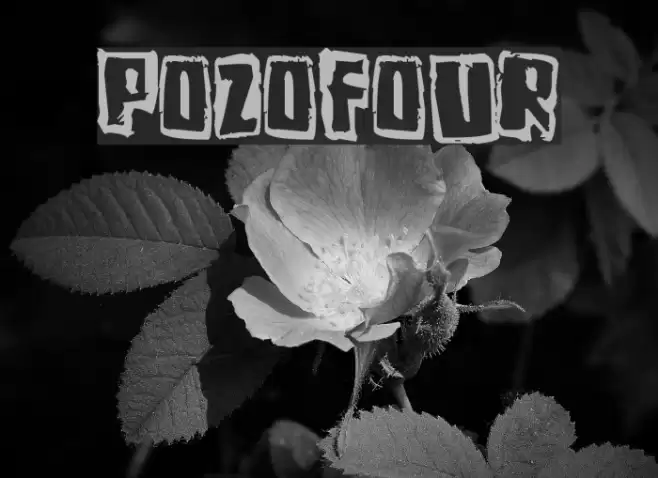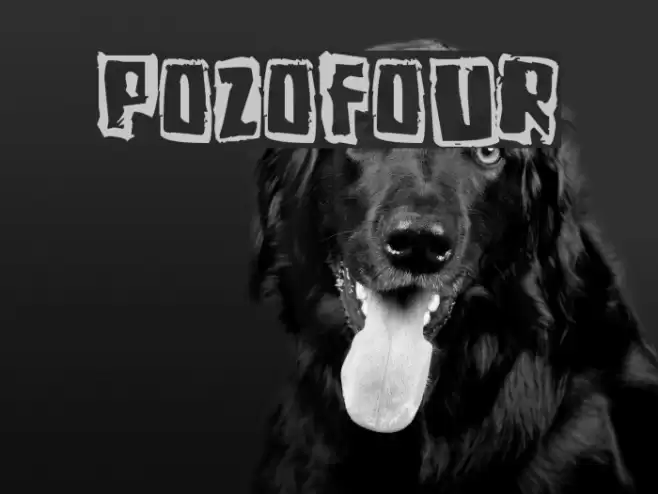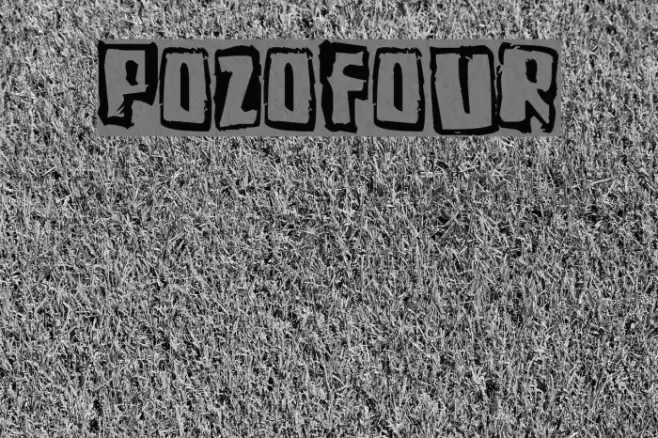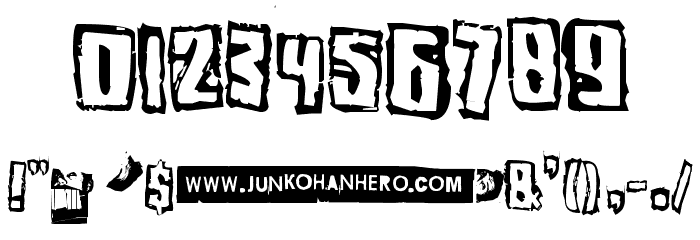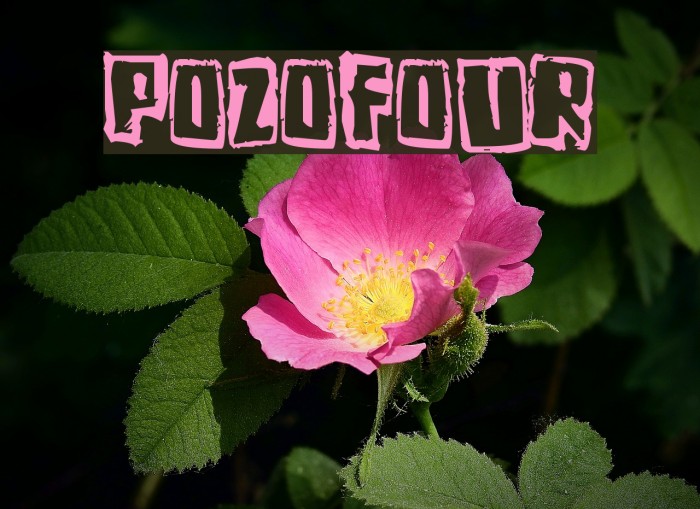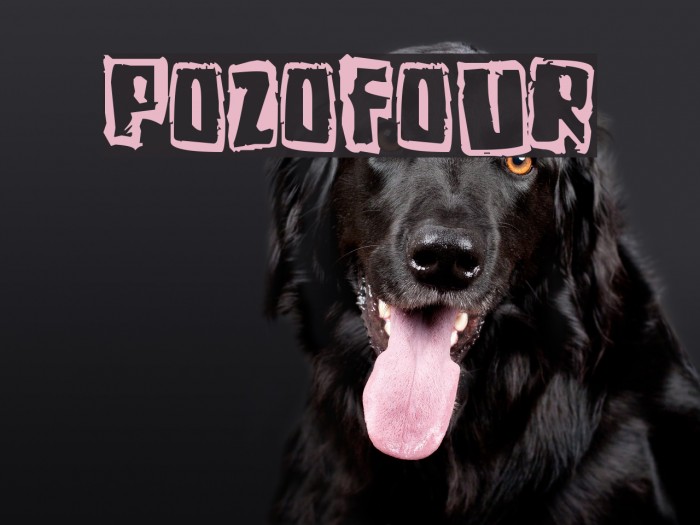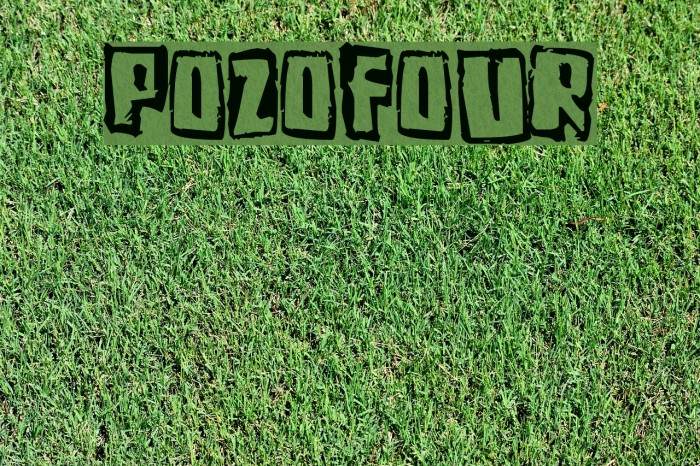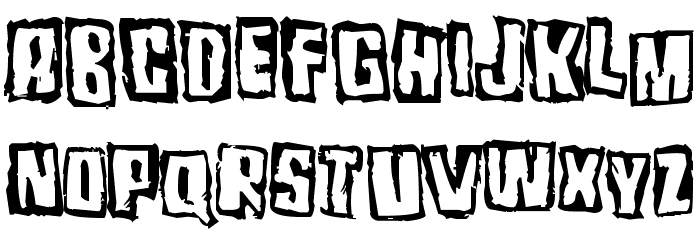
Pozofour Font
Pozofour Description
This font features a bold, rugged design with a distressed, grunge-like appearance. Each character appears as if it has been roughly carved or eroded, giving it a unique, edgy look. The letters are uppercase and lowercase, with numerals and a selection of special characters. The style is reminiscent of street art or graffiti, making it ideal for projects that require a bold and rebellious aesthetic. The uneven edges and irregular shapes contribute to its raw and dynamic feel, perfect for capturing attention.
A bold, distressed font with a rugged, graffiti-like style from Distorted Eroded fonts.
- Proposed Projects: Ideal for album covers, posters, streetwear branding, and edgy graphic designs.
- Overall Style: Grunge, Urban, Edgy